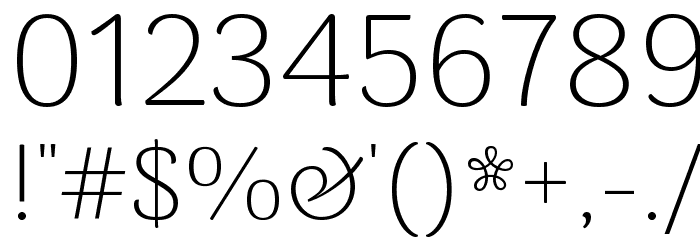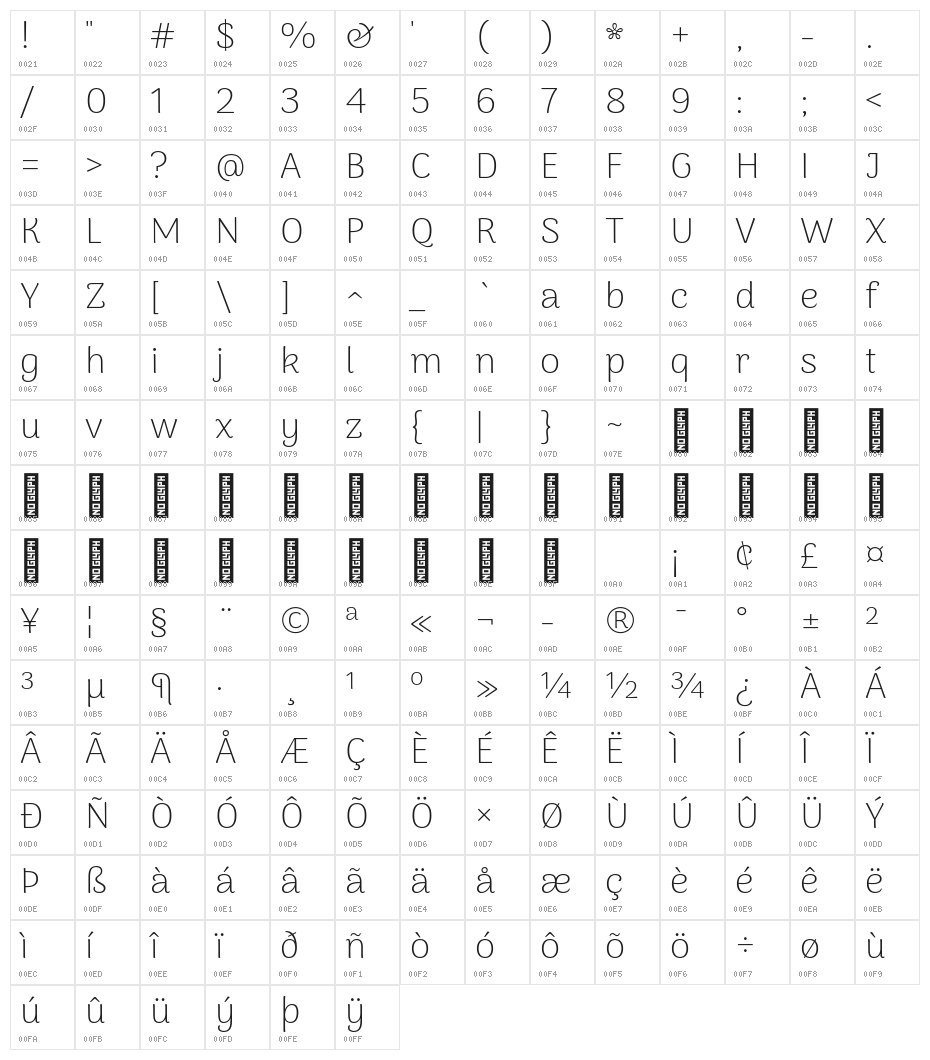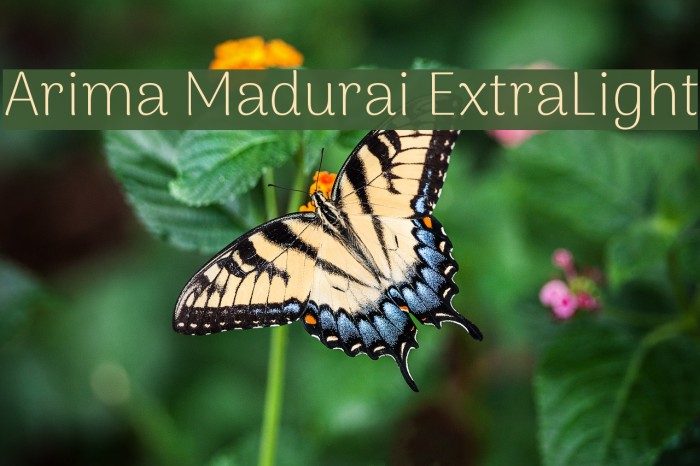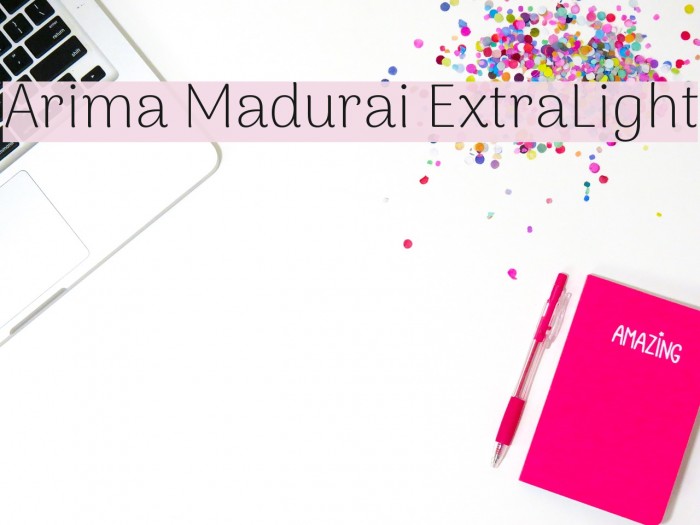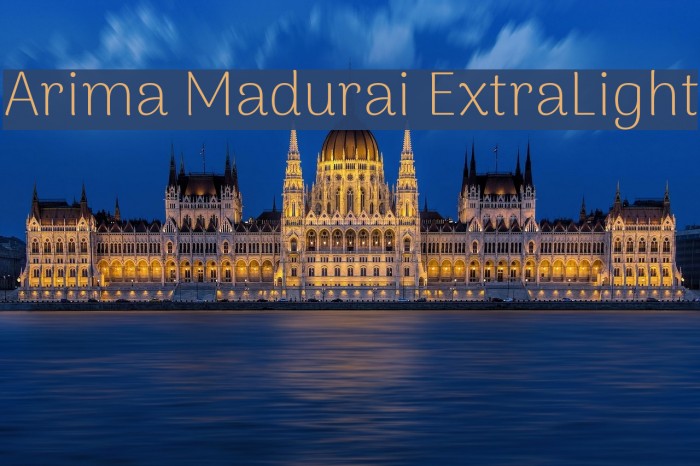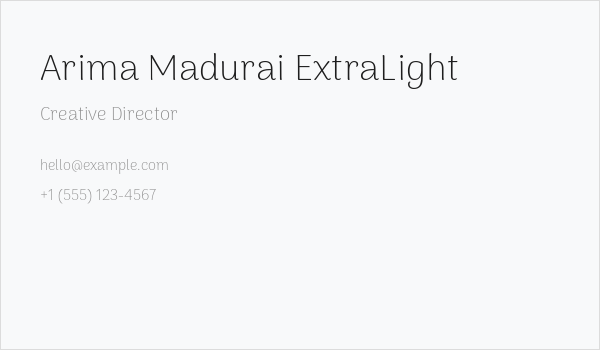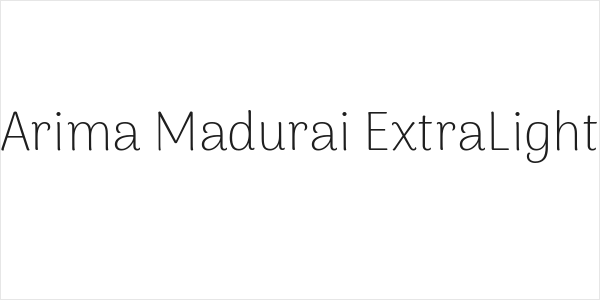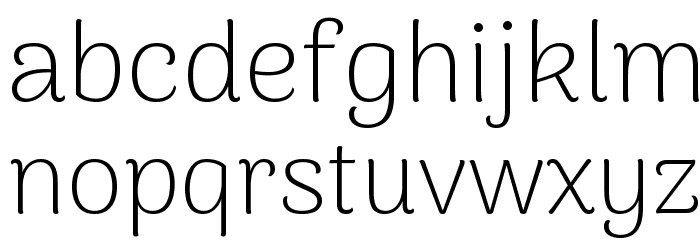
Arima Madurai ExtraLight Font
Arima Madurai ExtraLight Description
This font features a clean and modern sans-serif style with a light and airy appearance. The characters are well-proportioned, with a consistent stroke width that gives it a uniform look. The uppercase letters are tall and elegant, while the lowercase letters maintain a friendly and approachable feel. The numerals are clear and easy to read, making them suitable for various applications. Special characters are designed with simplicity and clarity in mind, ensuring they complement the overall aesthetic. This font's design is versatile, making it suitable for both digital and print media.
| Proposed Projects | Ideal for web design, branding, editorial layouts, and minimalist graphic design projects. |